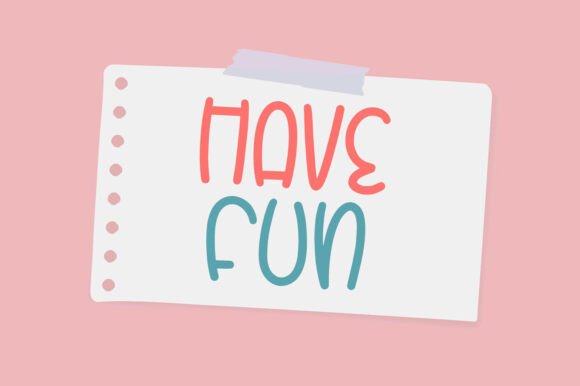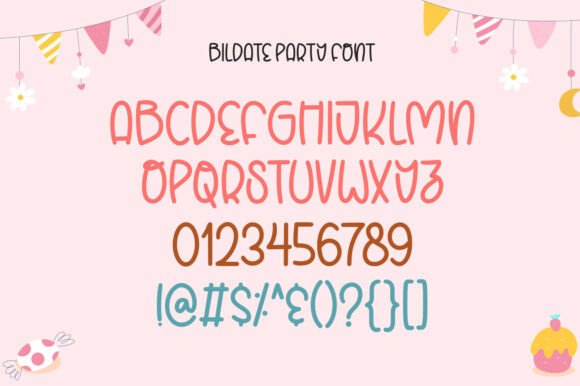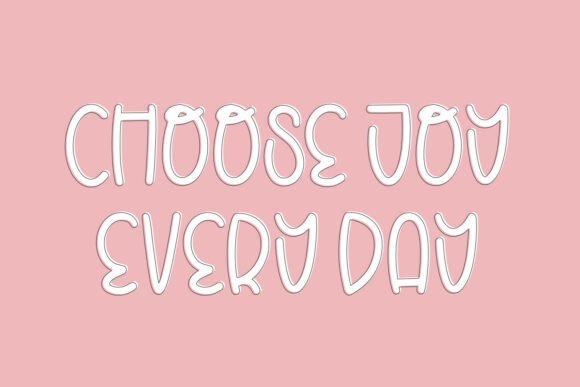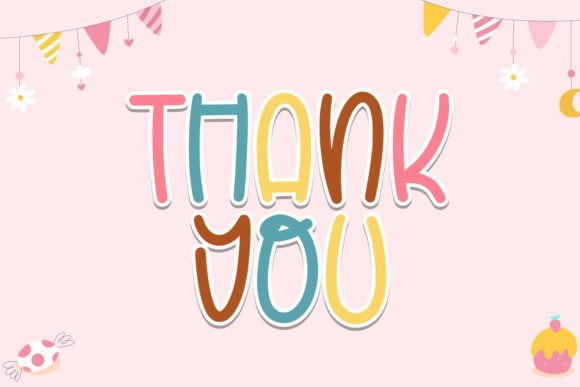
Adding a Dash of Joy to Your Designs
Remember the moment when you stumbled upon the perfect font to match your creative vision? For many designers, it’s that ‘aha’ moment that makes all the difference in bringing their ideas to life. As you’re brainstorming ways to convey happiness and warmth in your designs, you might be on the hunt for the perfect font to capture that feeling.
Enter the Bildate Party Font, a charming handwritten font that exudes a playful and friendly vibe. With its soft, rounded shapes and natural flow, this font is perfect for creating eye-catching designs that evoke happiness and cheerfulness. Whether you’re designing merchandise, inspirational quotes, or product packaging, the Bildate Party Font is an excellent choice for adding a personal touch and creating a positive atmosphere.
Bildate Party Font Key Features
- Font Style: Bildate Party is a modern, sans-serif font designed for party and celebration-themed designs.
- Font Size: The font comes in multiple sizes, ranging from 12pt to 72pt, making it suitable for various design applications.
- Resolution: Supports high-resolution printing and digital display, ensuring crisp and clear text at 300 DPI and above.
- Unique Characteristics: Bildate Party features a unique blend of geometric and organic elements, giving it a distinctive and eye-catching appearance.
- Font Pairing: Designed to be paired with other fonts for a dynamic and festive look, making it perfect for party invitations, decorations, and promotional materials.
Bildate Party Font Review
I recently had the chance to work with Bildate Party Font, and I must say it’s a mixed bag. Here are my thoughts:
- Fun and Playful Feel**: Bildate Party Font has a great, energetic vibe that’s perfect for projects that need a bit of excitement.
- Good Legibility**: The font is relatively easy to read, even at smaller sizes, which is a plus for designers who need to balance style with readability.
- Variety of Styles**: Bildate Party Font comes in multiple styles, including bold, italic, and bold italic, which gives designers a lot of flexibility.
- Limited Character Set**: Bildate Party Font’s character set is somewhat limited, which can make it difficult to use for longer blocks of text.
- Not Suitable for Body Copy**: While Bildate Party Font is great for headlines and titles, it’s not the best choice for body copy due to its playful, informal feel.
Overall, Bildate Party Font is a fun and versatile font that’s perfect for projects that need a bit of personality. While it has its limitations, it’s a great choice for designers who want to add some excitement to their work.
Bildate Party Font Practical Application Guide
For best results, use Bildate Party Font in bold or italic styles to add emphasis.
Use this font for party invitations, social media graphics, or event promotions.
Experiment with different font combinations to create a unique look.
Alternatives to Bildate Party Font
Great Vibes is a modern, elegant script font perfect for adding a touch of sophistication to your designs. It’s ideal for use in headings, logos, and other titles where you want to convey a sense of luxury and refinement. Great Vibes is more polished and refined compared to Bildate Party Font, which is more playful and casual.
Pacifico is a beautiful, handwritten font that’s great for creating a relaxed, beachy vibe. It’s perfect for use in headings, titles, and other text where you want to convey a sense of calmness and serenity. Pacifico is more laid-back and casual compared to Bildate Party Font, which is more energetic and playful.
Carolyna Pro is a stylish, modern script font that’s great for use in headings, titles, and other text where you want to convey a sense of elegance and sophistication. It’s more versatile and polished compared to Bildate Party Font, which is more limited in its use cases. Carolyna Pro is ideal for use in fashion, beauty, and lifestyle designs.
Playfair Display is a luxurious, elegant font that’s perfect for use in headings, titles, and other text where you want to convey a sense of opulence and refinement. It’s more formal and sophisticated compared to Bildate Party Font, which is more casual and playful. Playfair Display is ideal for use in high-end designs, such as luxury fashion and hospitality.
Q: Is the Bildate Party Font compatible with font substitution or font fallback mechanisms?
Yes, the Bildate Party Font is designed to work seamlessly with font substitution and font fallback mechanisms. This means that if the font is not available or cannot be loaded, the system will automatically substitute or fallback to a similar font, ensuring that the text remains legible and visually appealing.